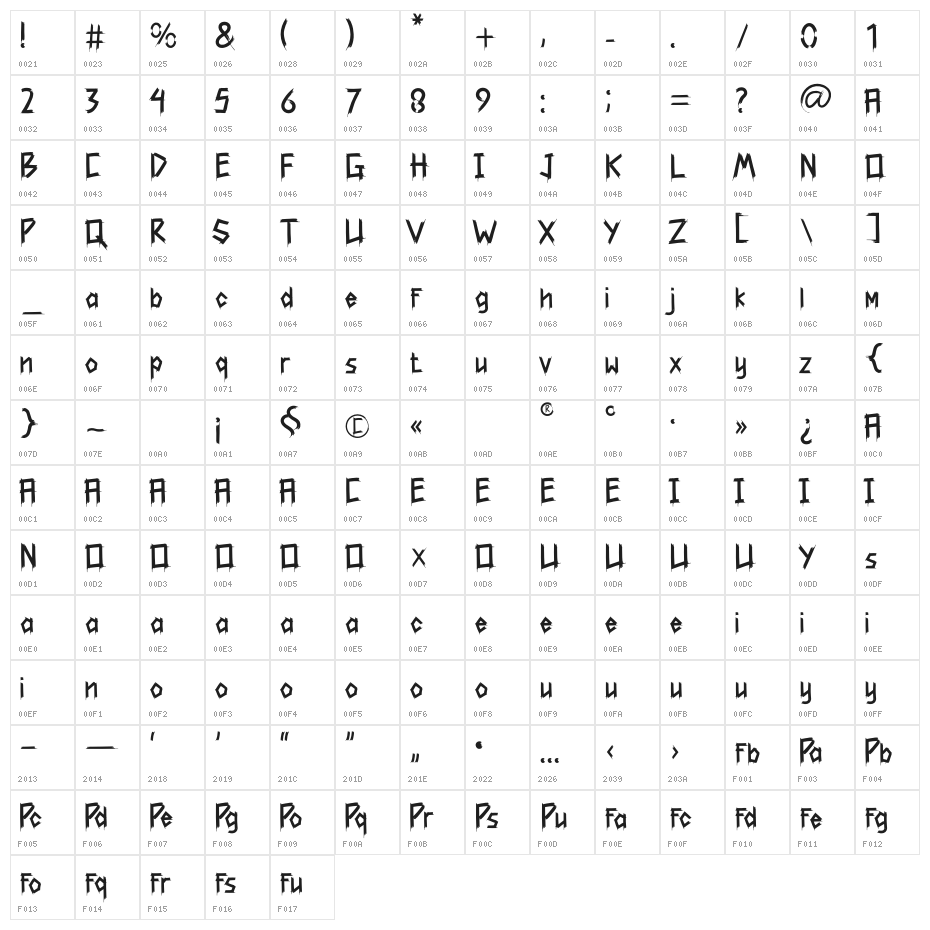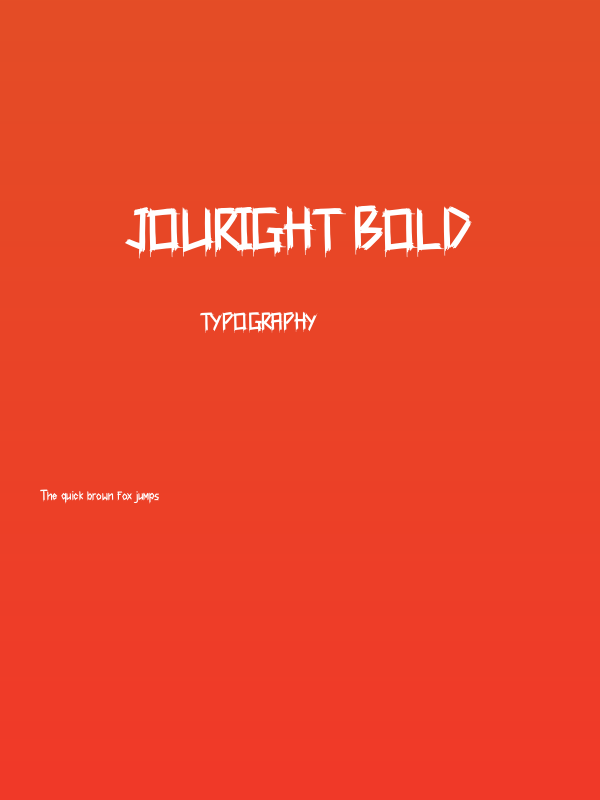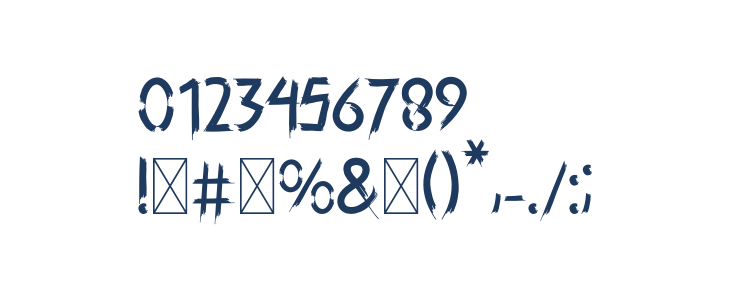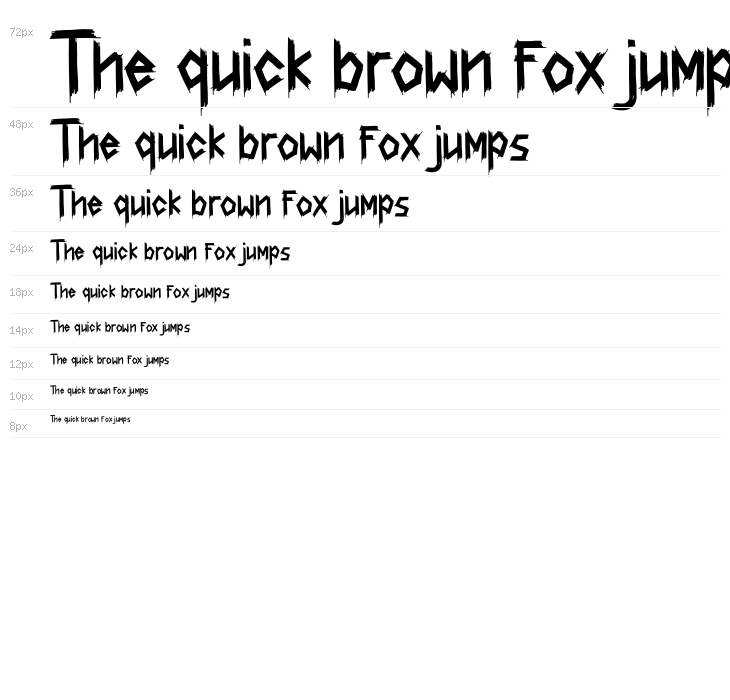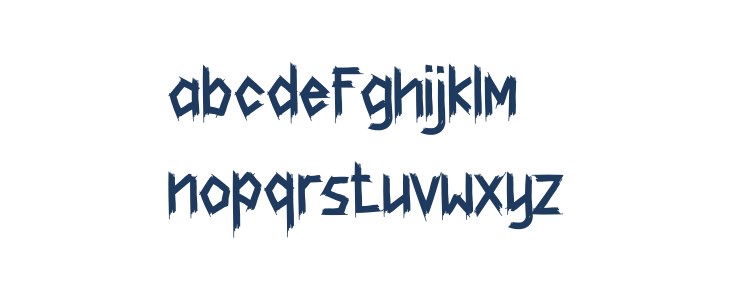
Jouright Bold Font
Jouright Bold Description
This font features a bold and edgy design with sharp, jagged edges that give it a dynamic and aggressive appearance. The characters are heavily stylized, resembling brush strokes or graffiti, which adds a sense of movement and energy. The uppercase and lowercase letters maintain a consistent style, with angular forms and irregular line thicknesses that contribute to its raw and expressive look. The numerals and special characters follow the same aesthetic, ensuring a cohesive visual identity throughout. This font is ideal for projects that require a bold statement or an urban, rebellious vibe.
| Overall Style | Modern, Urban |
| Proposed Projects | Ideal for music album covers, streetwear branding, event posters, and video game graphics. |